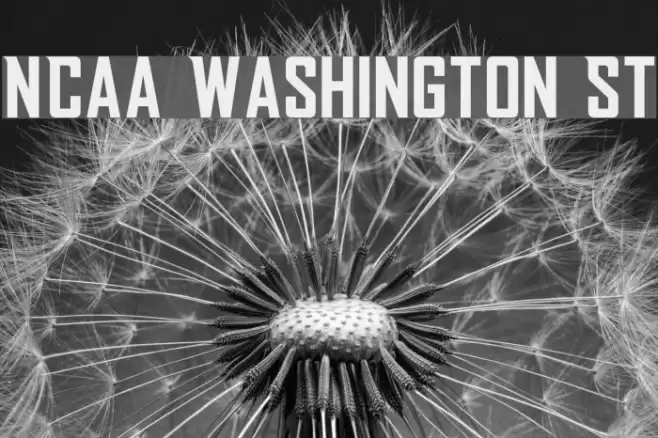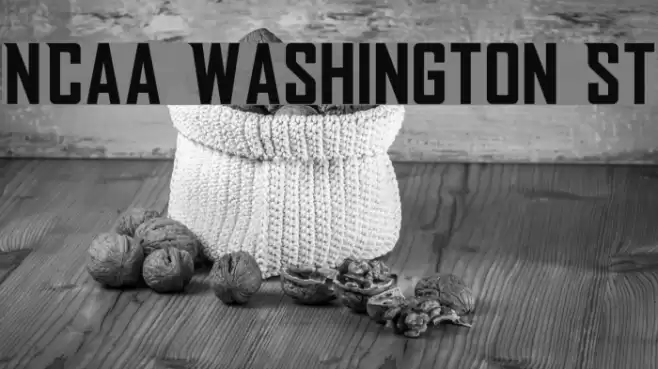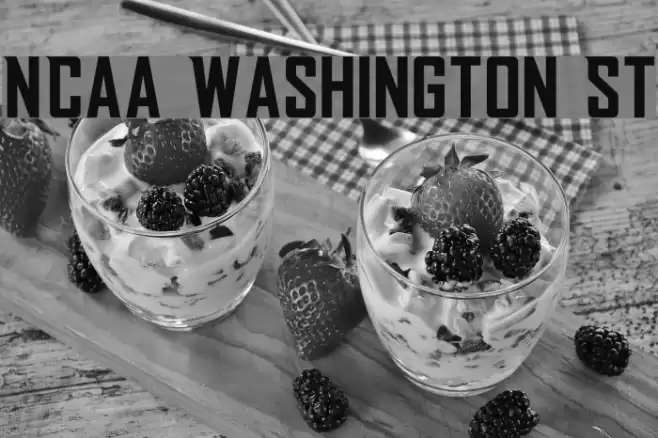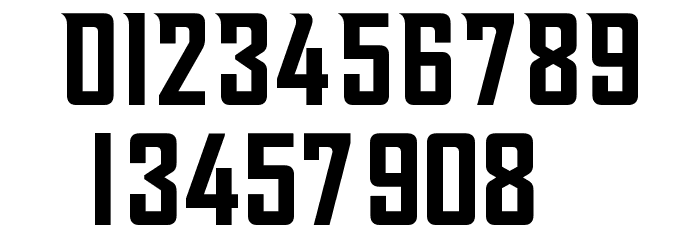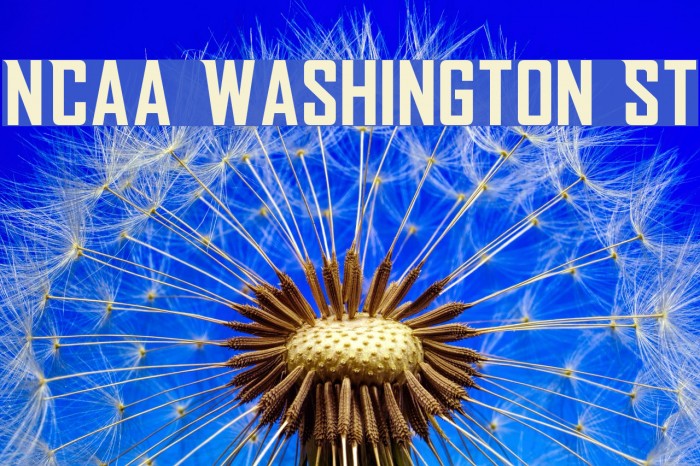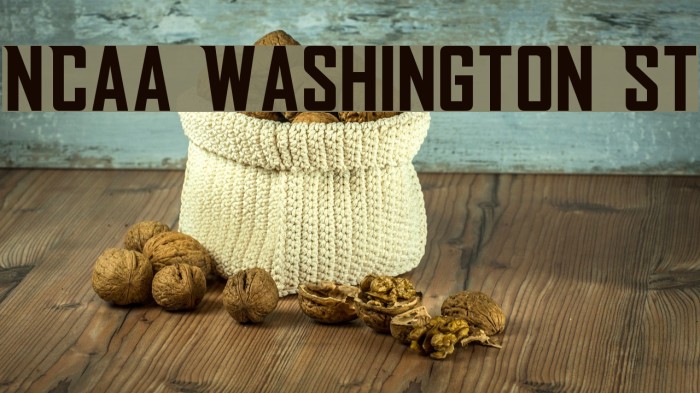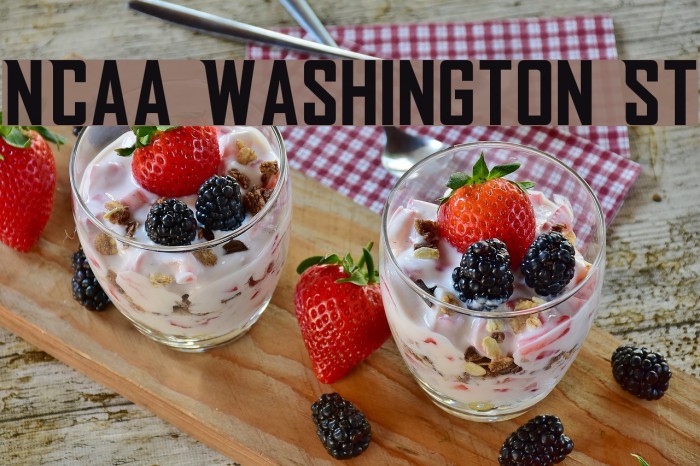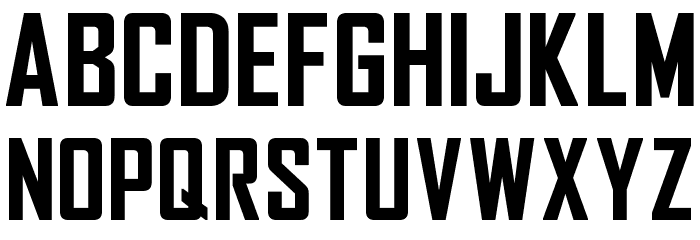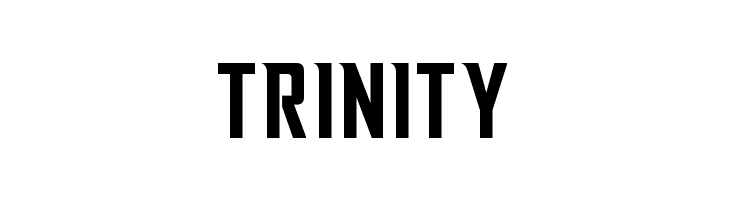
NCAA Washington St Font
NCAA Washington St Description
This font features a bold and robust design with strong, angular lines and a slightly condensed appearance. The uppercase letters are uniform in height, with a consistent stroke width that conveys a sense of strength and stability. The numbers are similarly bold, maintaining the same visual weight as the letters, which ensures a cohesive look across different types of content. The font's geometric shapes and clean lines make it highly legible, even from a distance, making it suitable for various applications where clarity and impact are essential.
A bold, angular font with a strong, condensed design.
- Proposed Projects: Ideal for sports branding, team jerseys, posters, and signage where a bold and impactful presence is needed.
- Category: Sans-Serif
- Use Case: Headlines, Logos, Sports branding